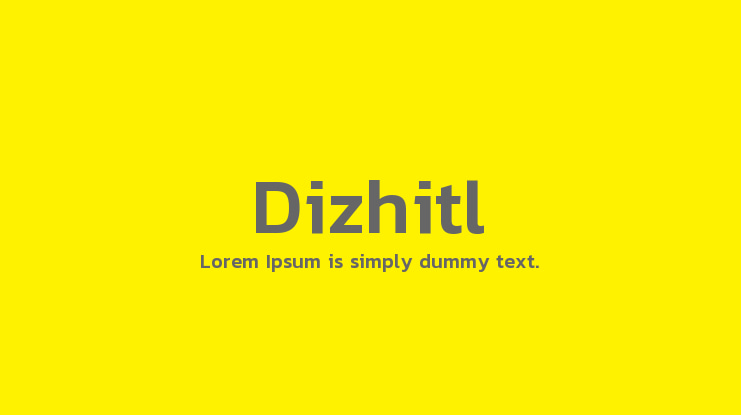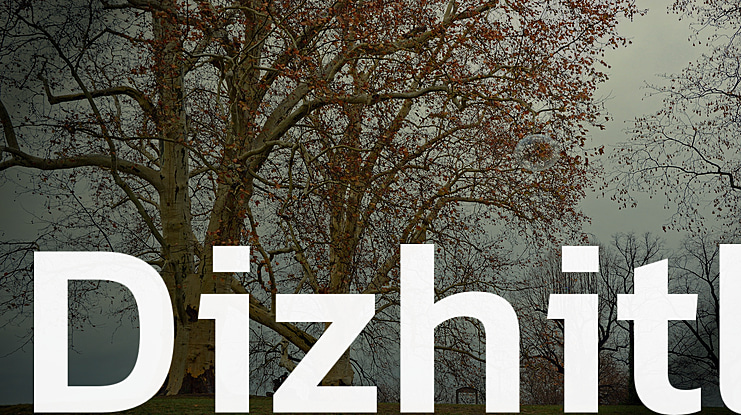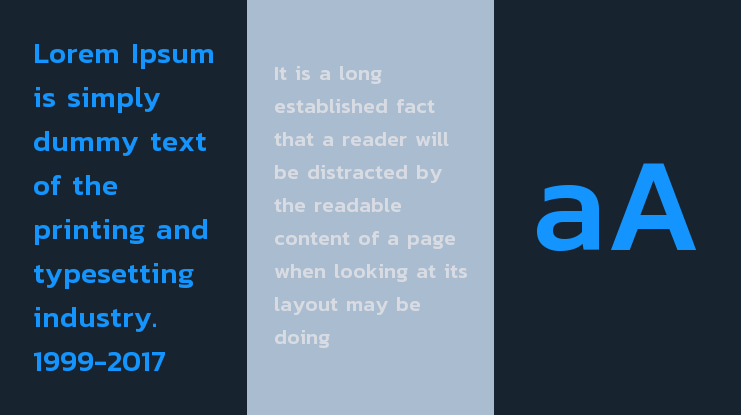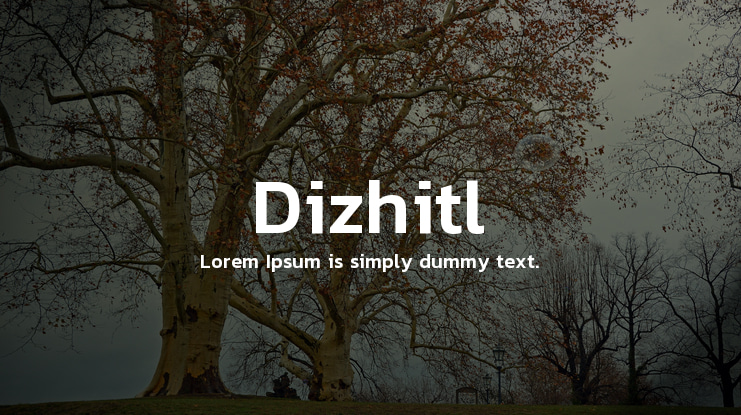
Dizhitl Font Family
Katatrad Team, changes by Cristiano Sobral
Dizhitl -digital in Thai- is a sans-serif font developed from the Kanit fonts by Cadson Demak. Changes are a more traditional 'q', and added some glyphs.